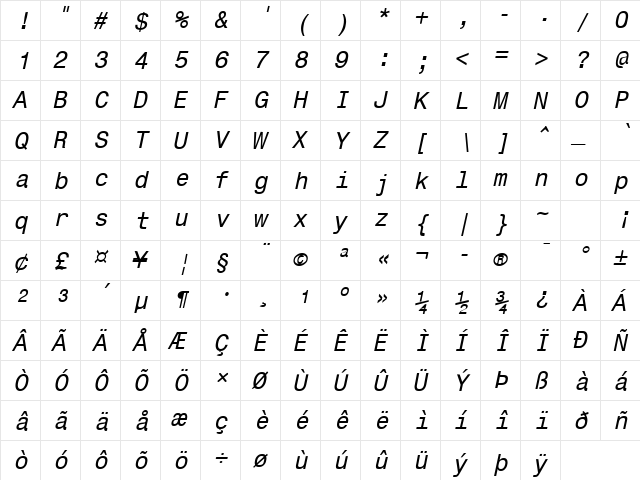
Corporate Mono Oblique Font Preview
Design Context for Corporate Mono Typeface
Corporate Mono uses fixed-width spacing throughout, giving it the structured, systematic character associated with coding environments and technical documentation. Its italic angle brings a sense of urgency and motion to the letterforms.
Pro Tip: Use Corporate Mono with slightly increased line-height for extended reading — fixed-width spacing can feel dense in longer passages without extra breathing room.